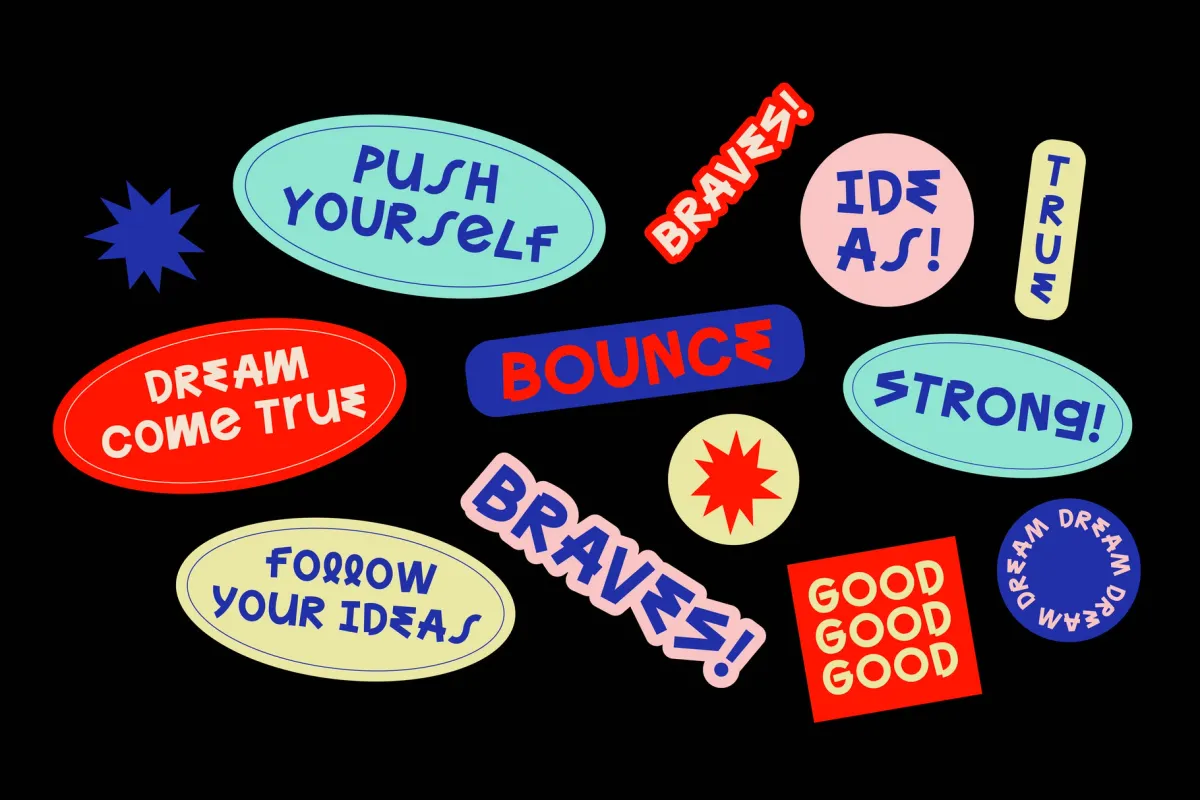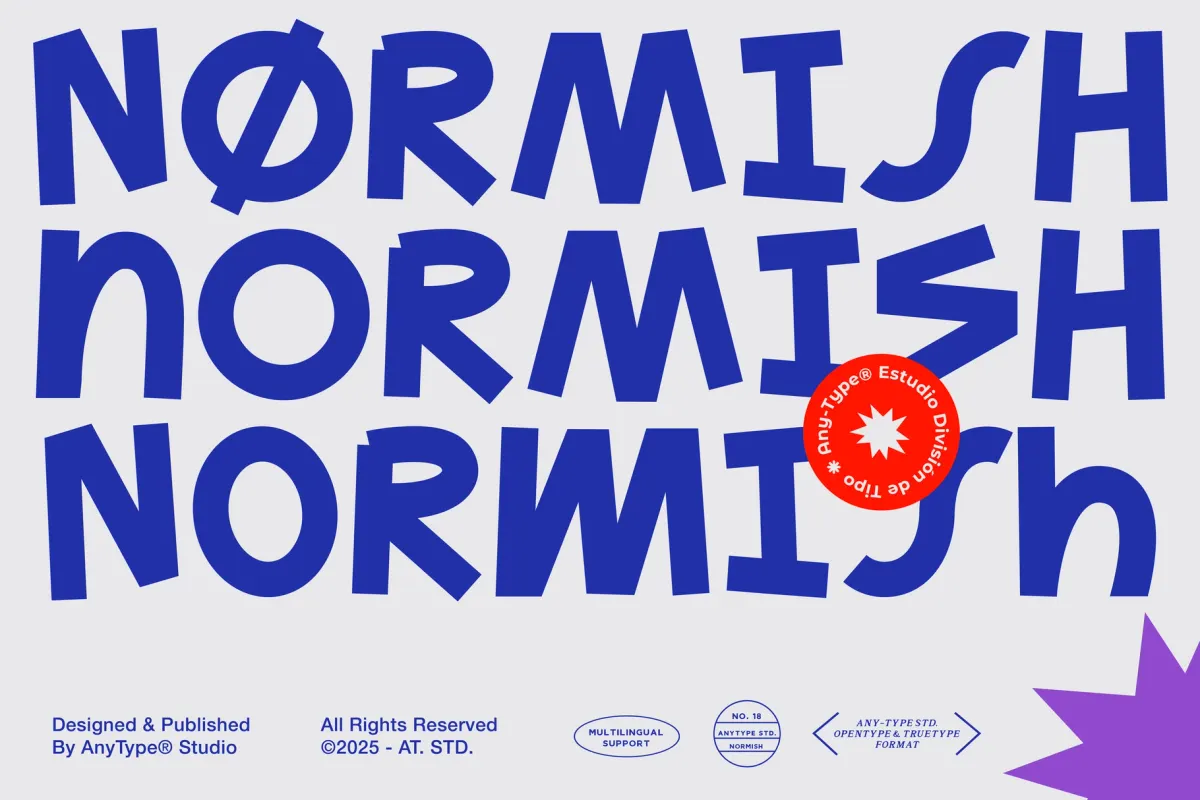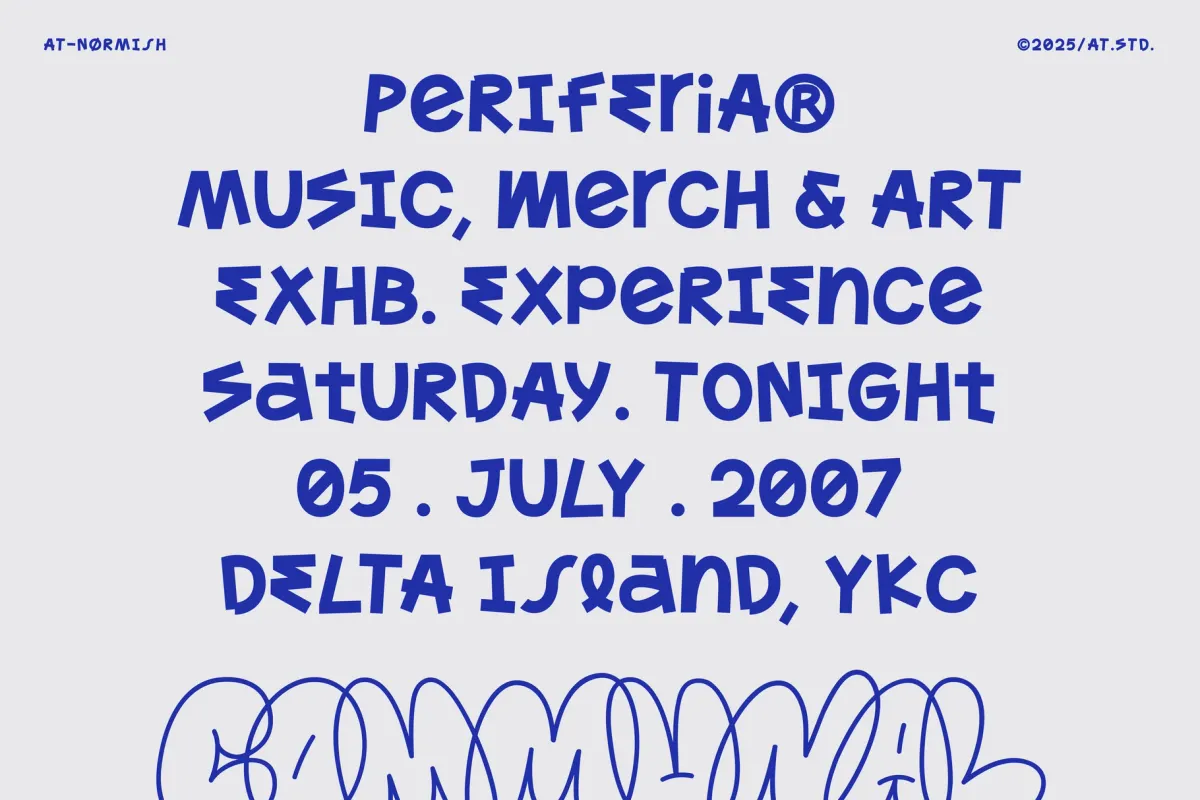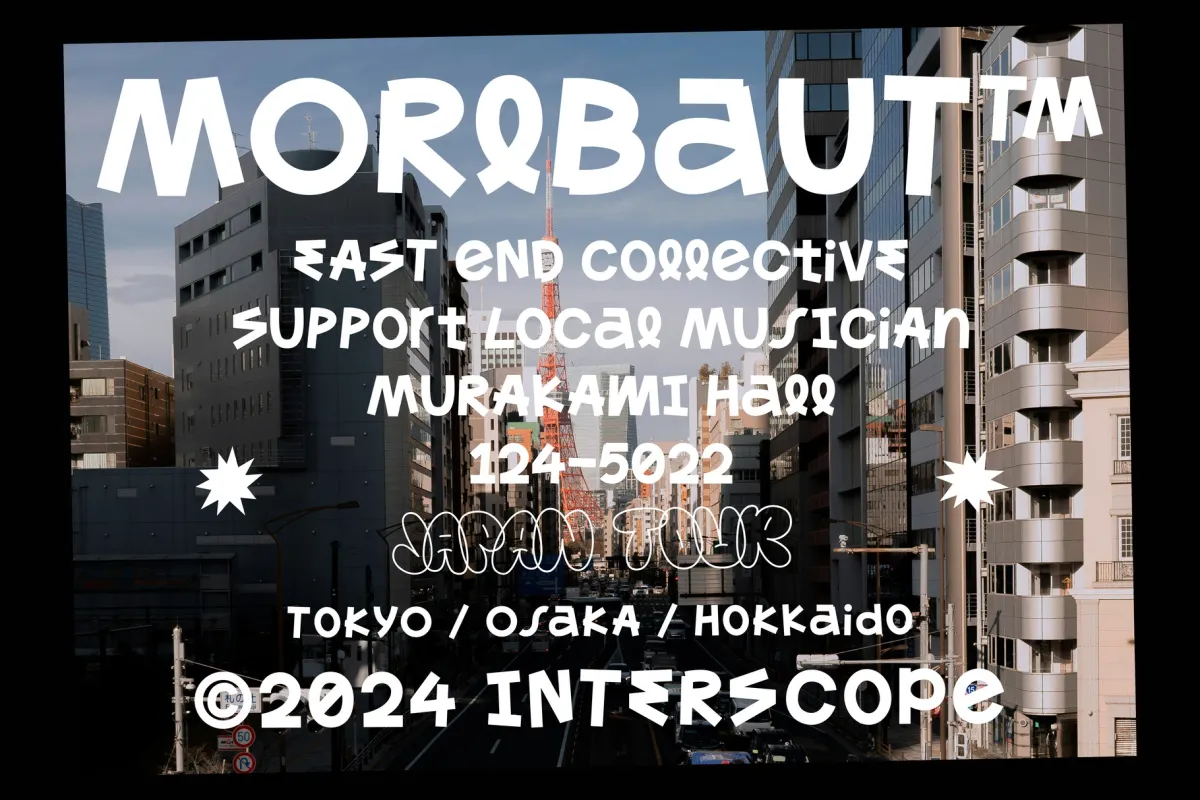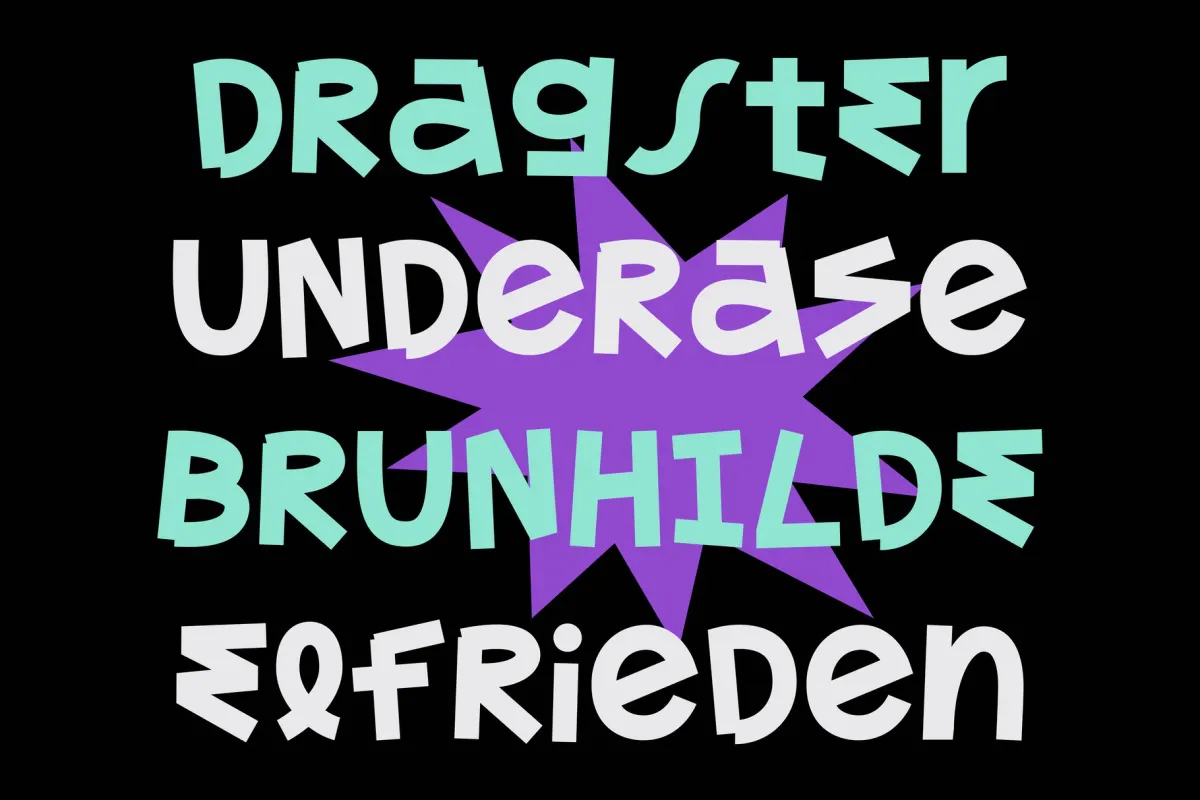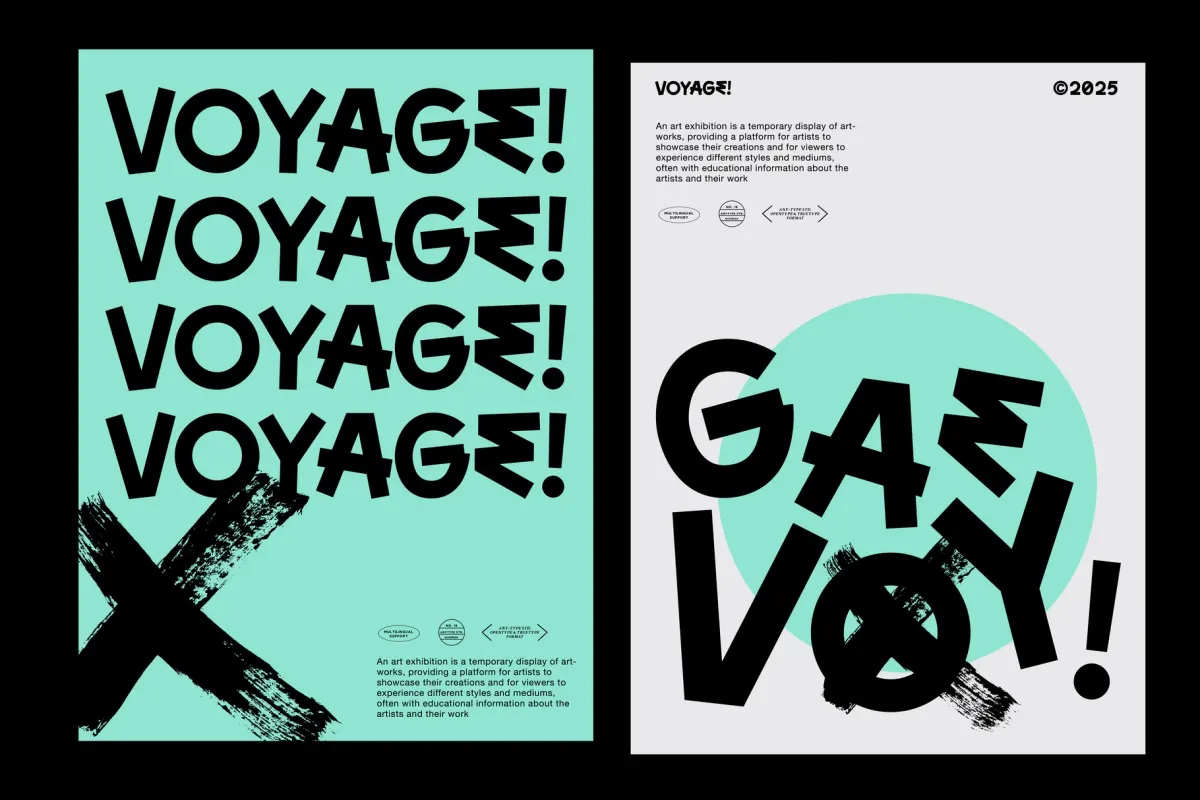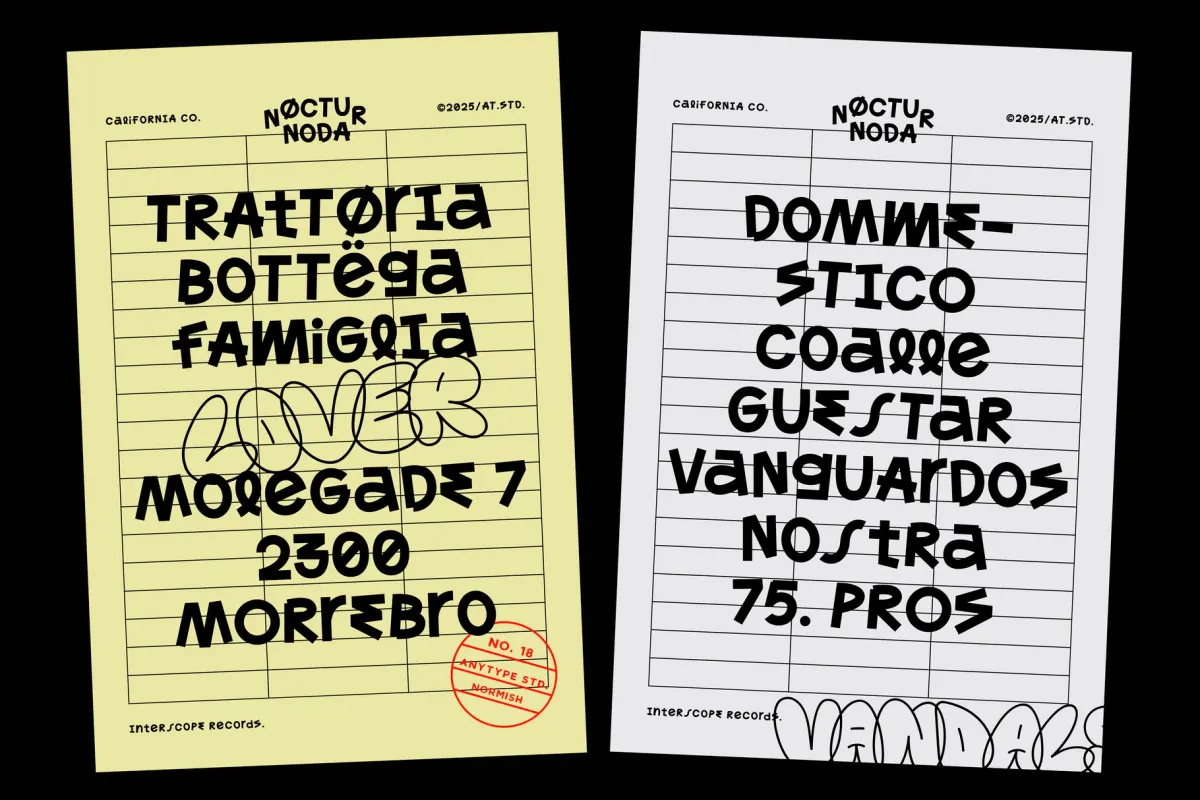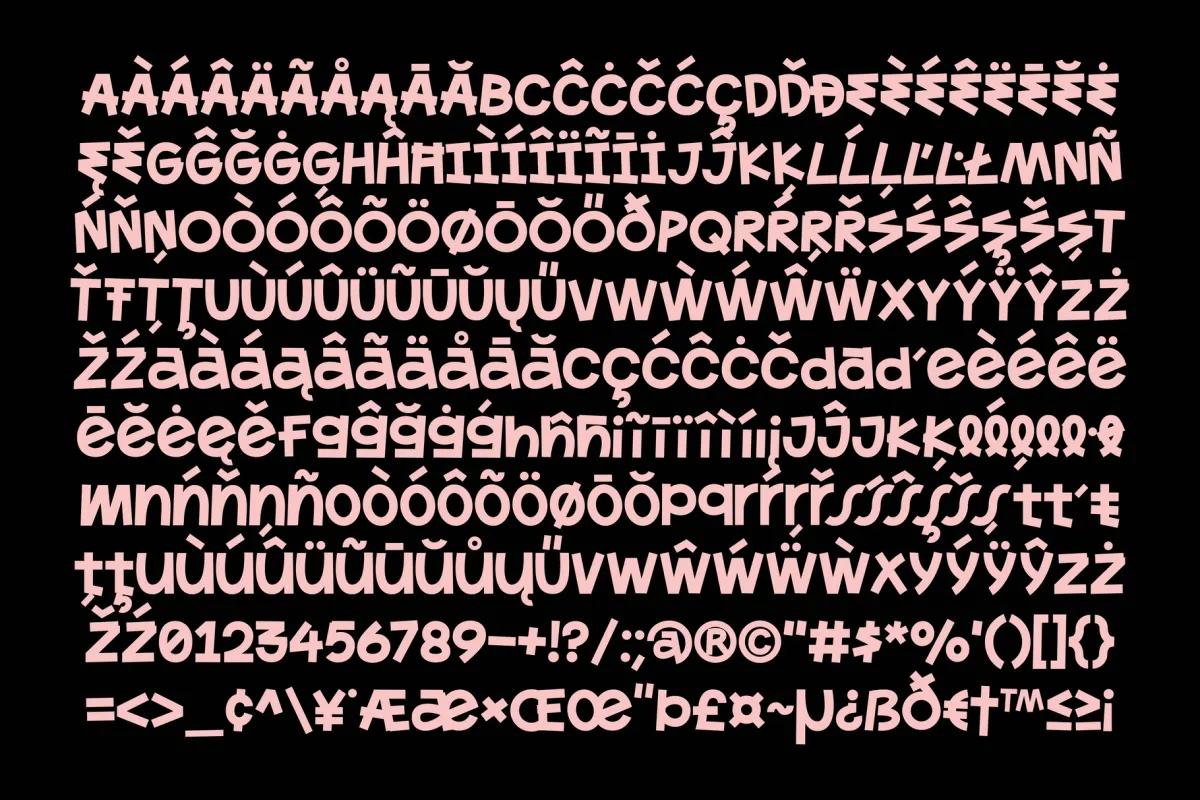
AT Normish
Normish
AT Normish is an offbeat sans playing with proportion, giving each letter a slight tilt or tension. Angled cuts, exaggerated terminals, and a few sly asymmetries give it a handmade edge — but the construction stays clean enough for typographic balance across a page or screen.
Its playful irregularity makes it a standout in poster series, museum graphics, exhibition branding, editorial subheads, typographic merch, festival signage, zines, and pop-up campaigns. Even short bursts of text feel active, especially when paired with graphic shapes or collage-style layouts.